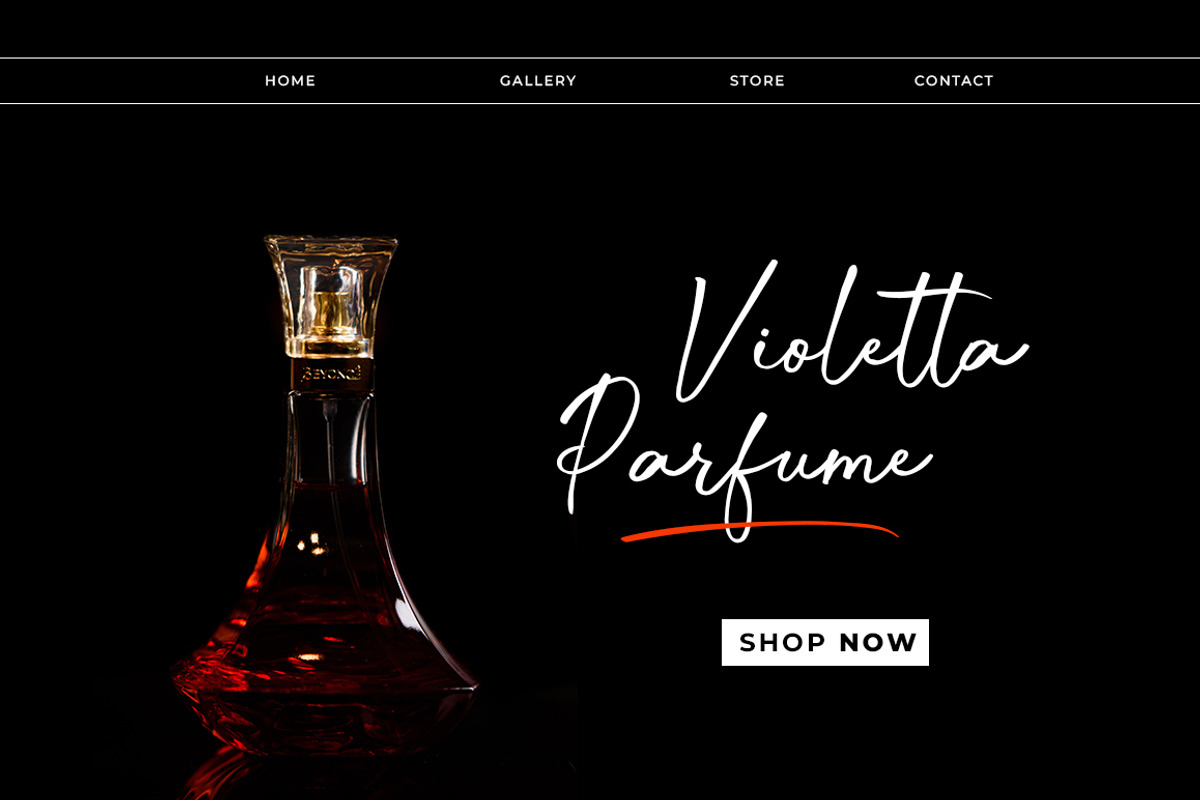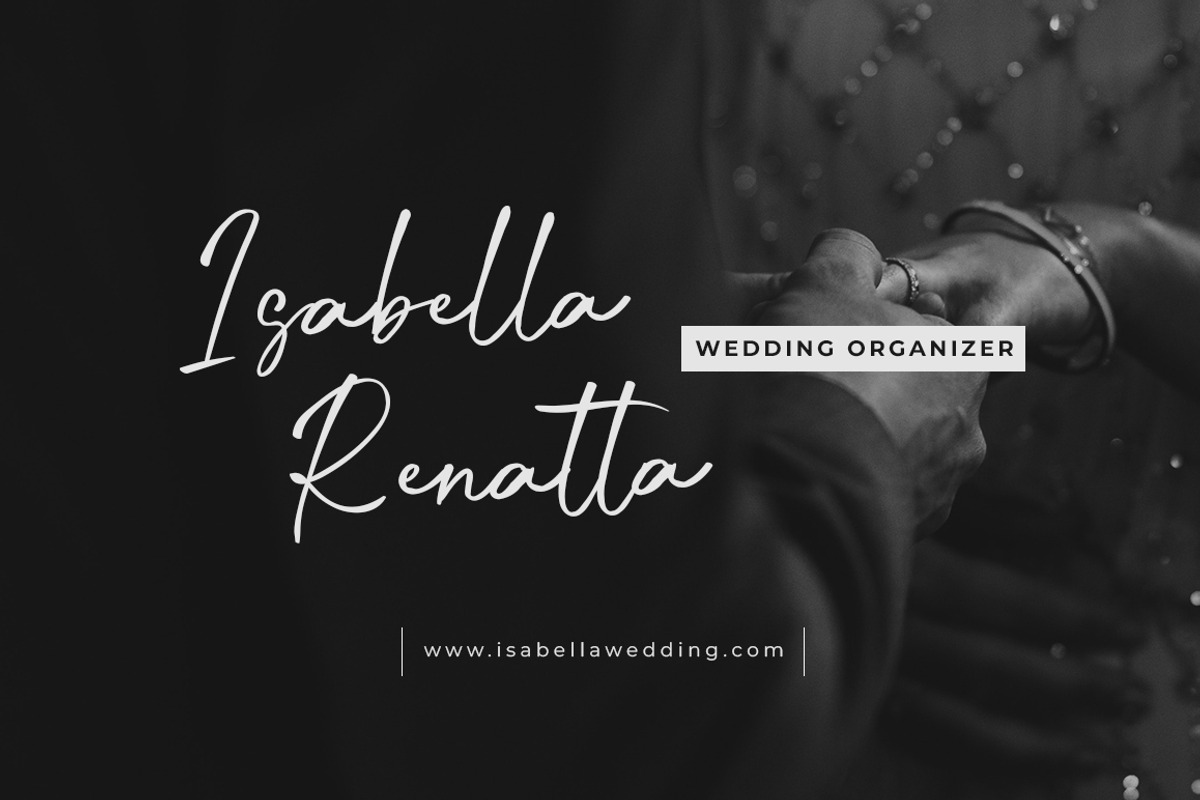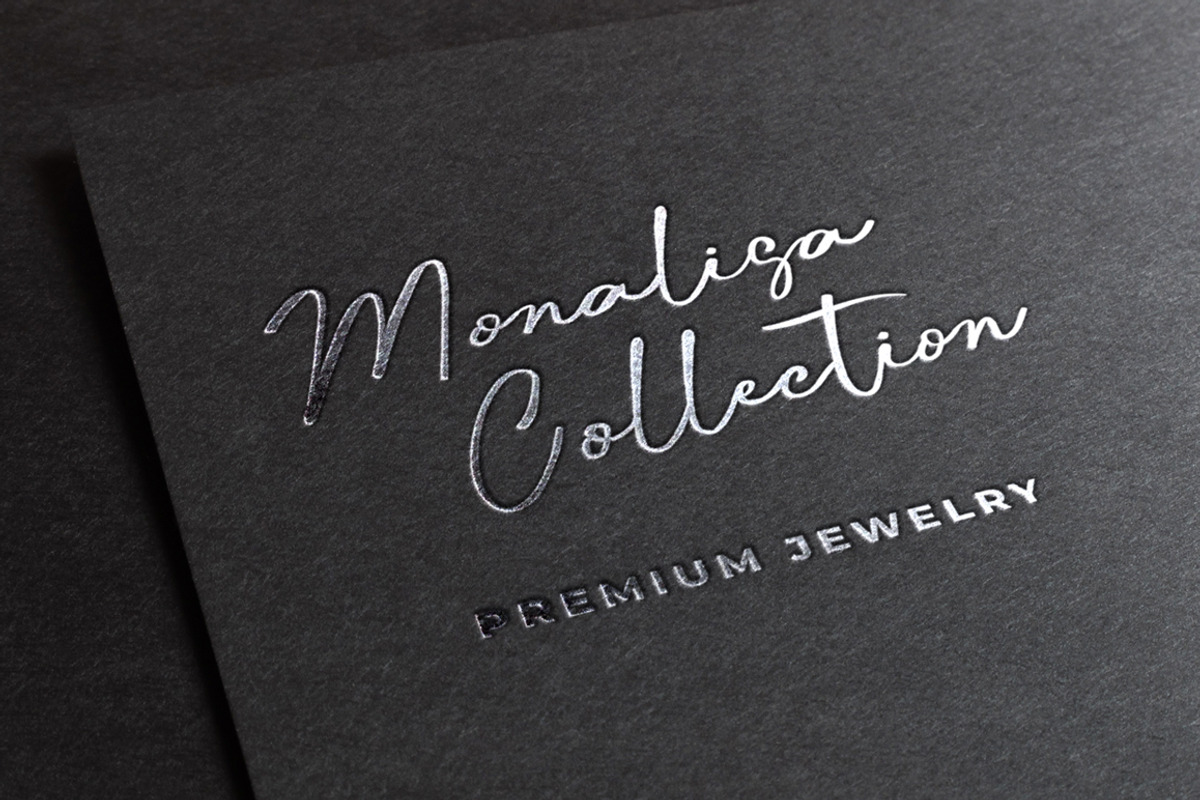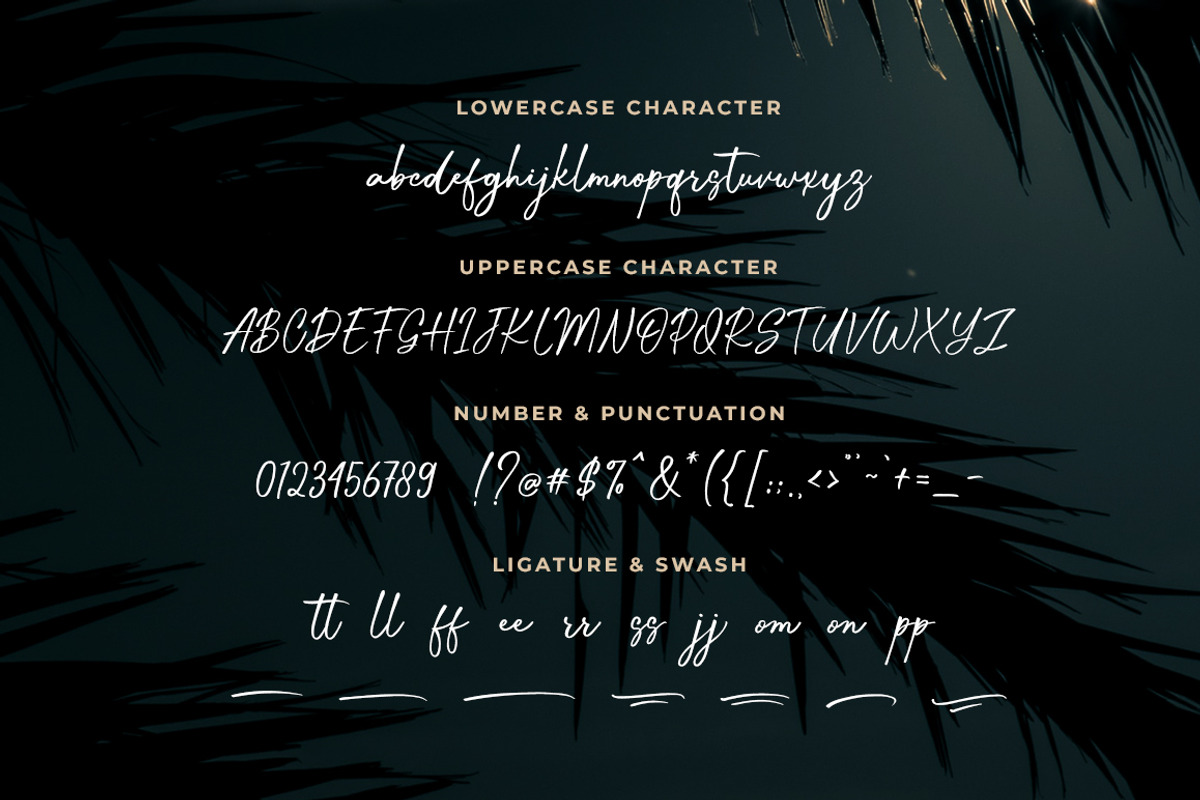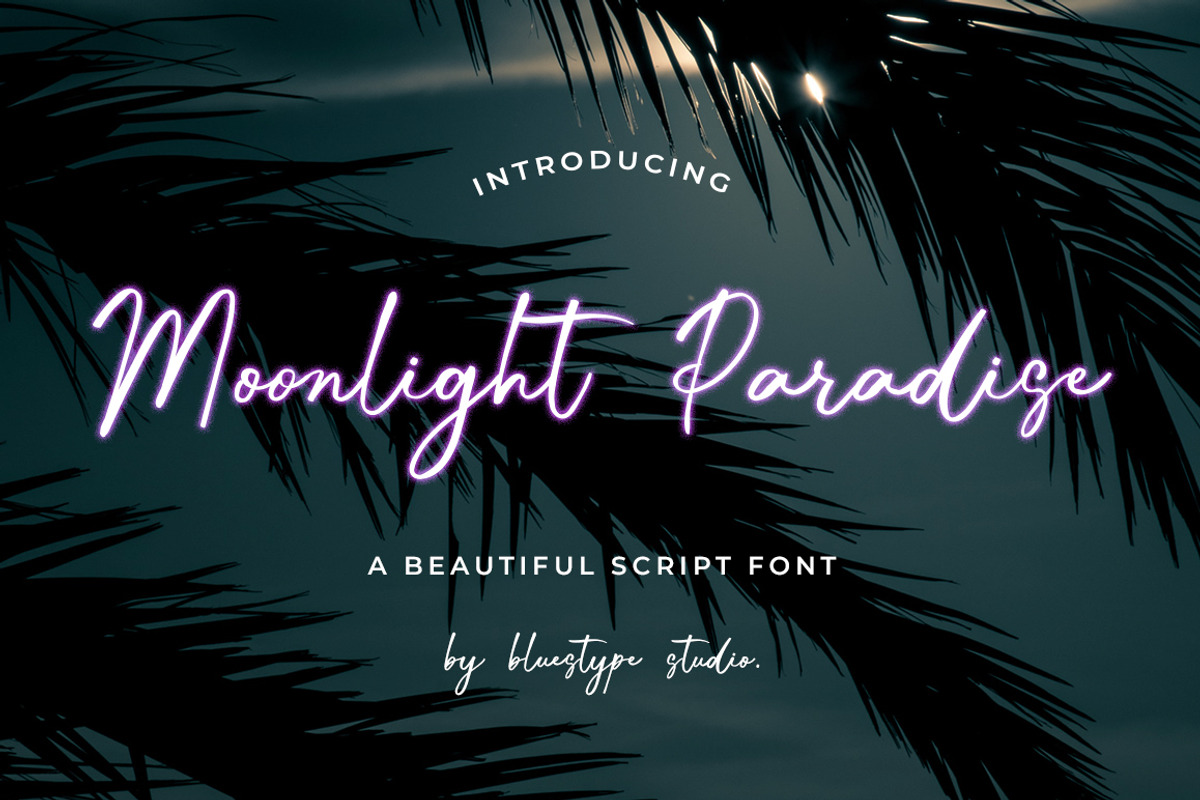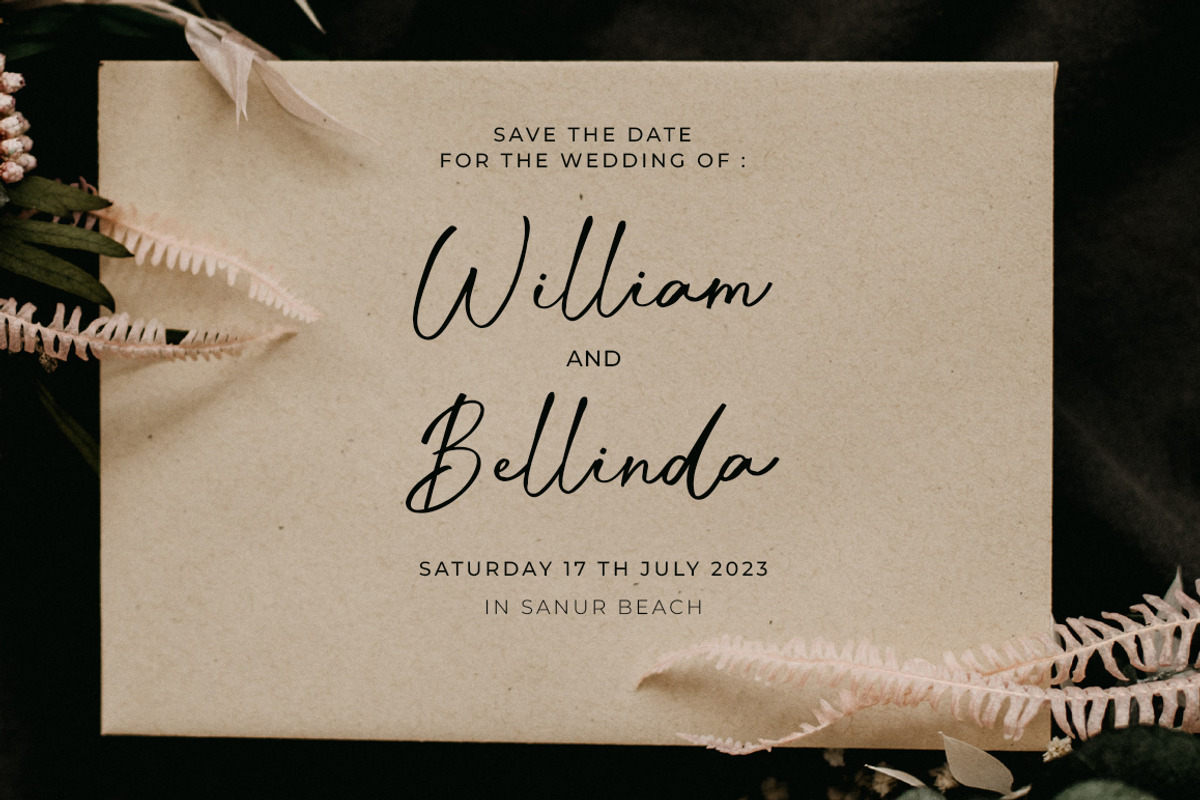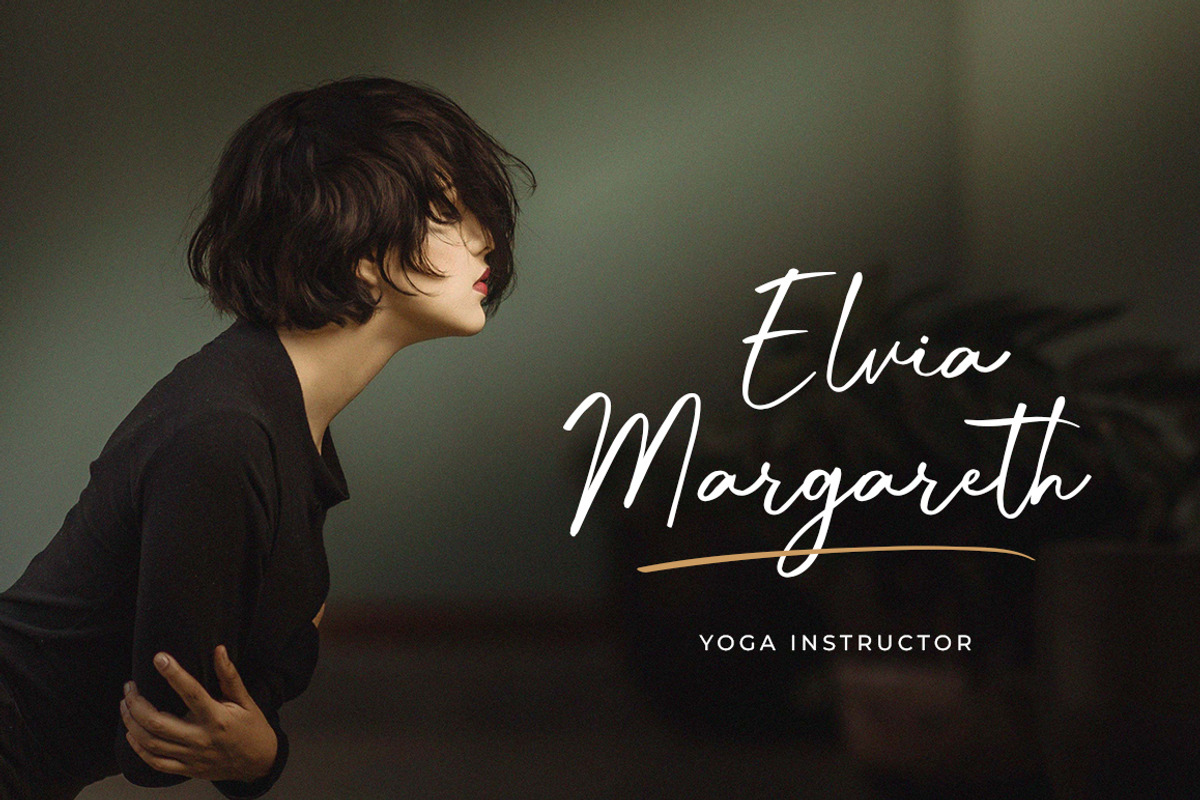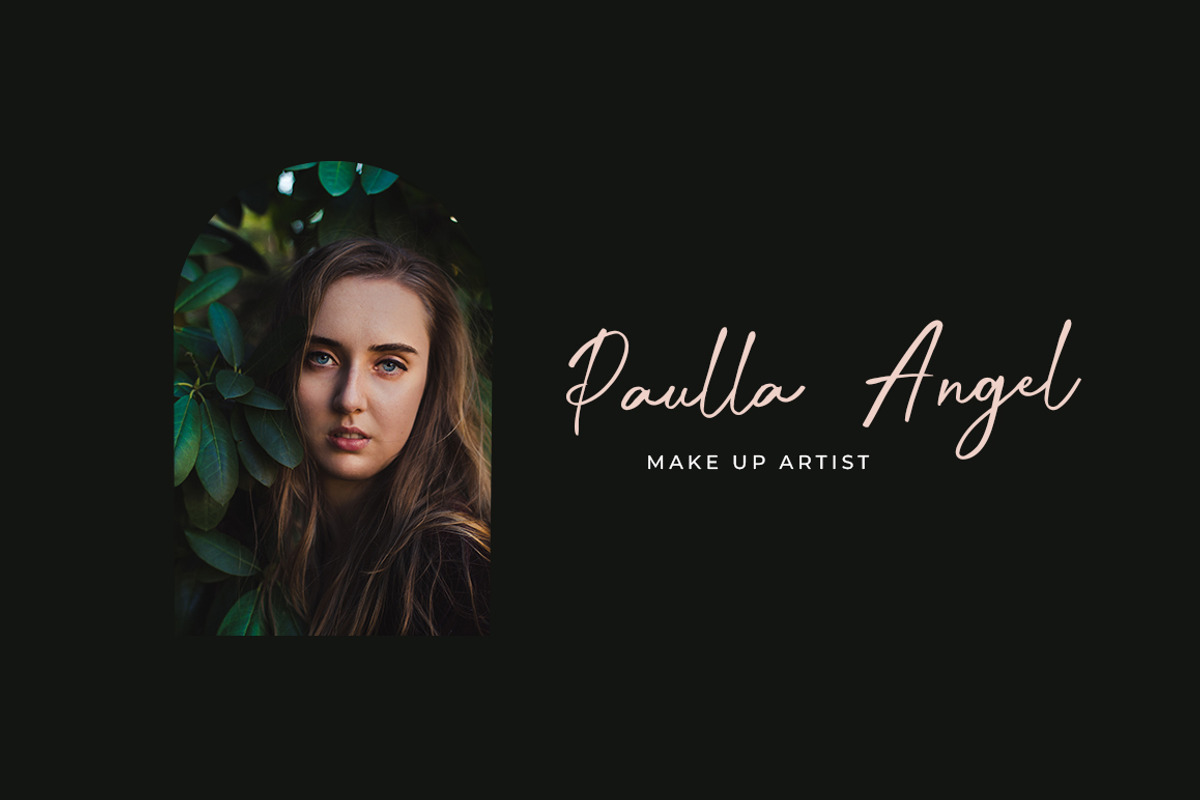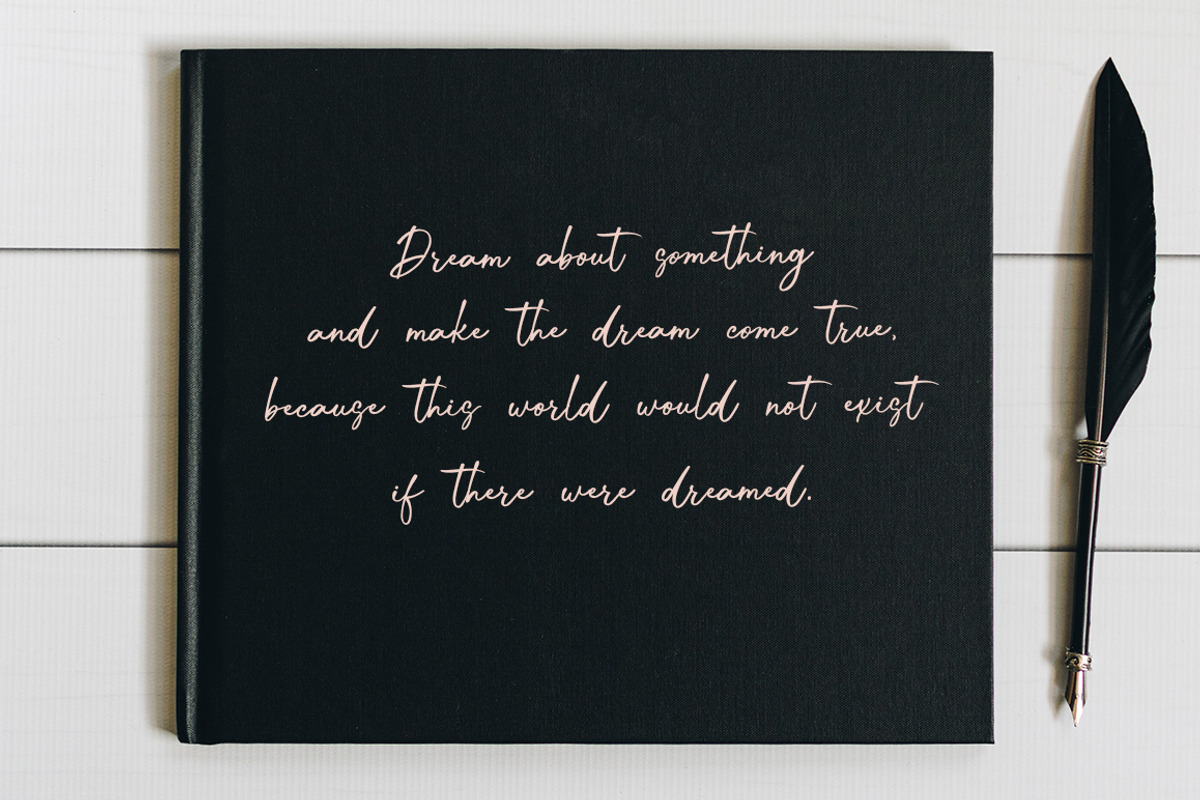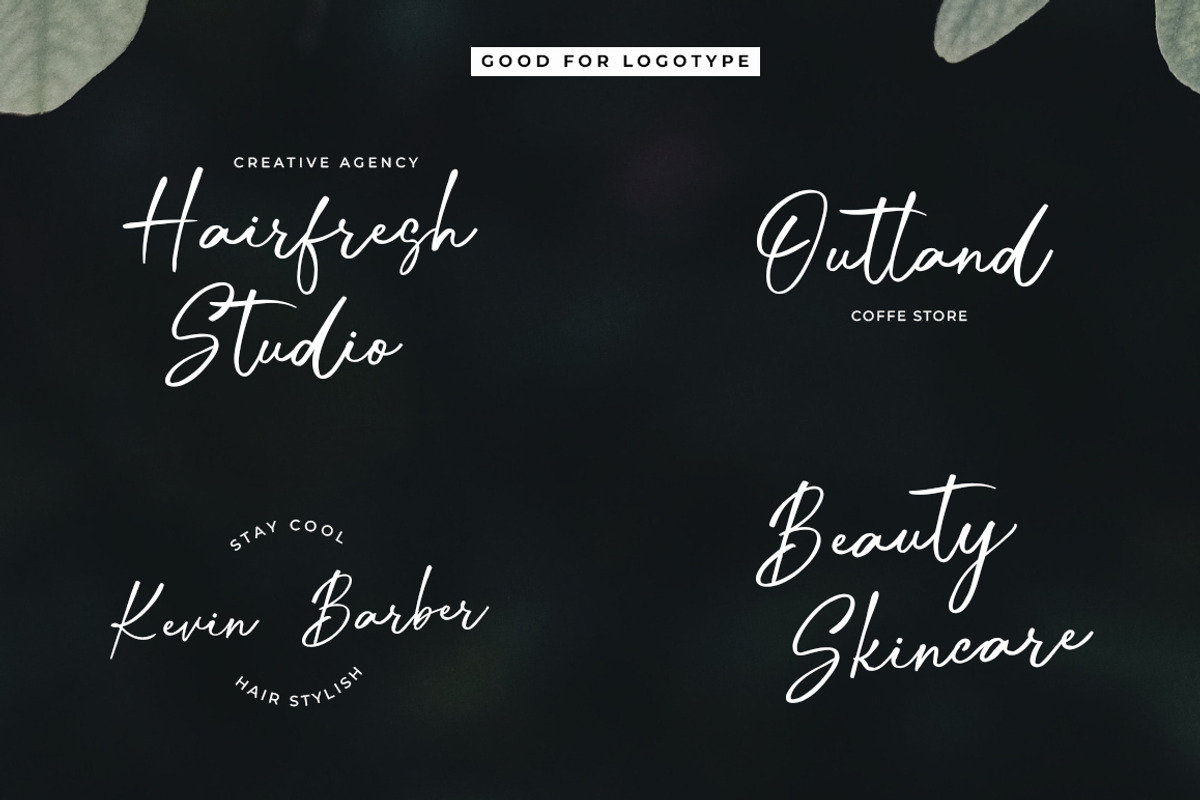
Moonlight Paradise - Script Font
Moonlight Paradise is an enchanting handwritten font. This versatile script font has a wide spectrum of applications ranging from greeting cards to headlines and is guaranteed to add a romantic feel to your next project. It will add a joyful and modern touch to each of your projects!
This font is suitable for use on branding, social media, business cards, weddings, t-shirt designs, logotype, magazines, quotes, fashion, watermarks, invitations, signatures.
- Number & Punctuation